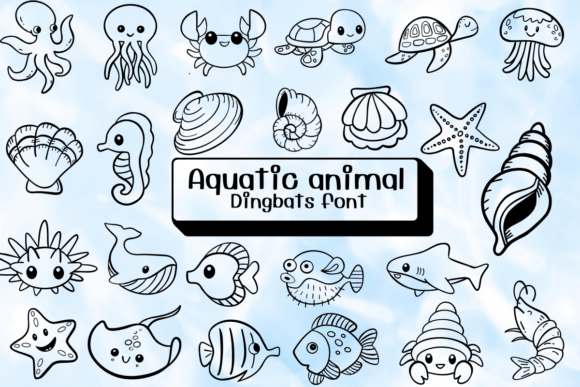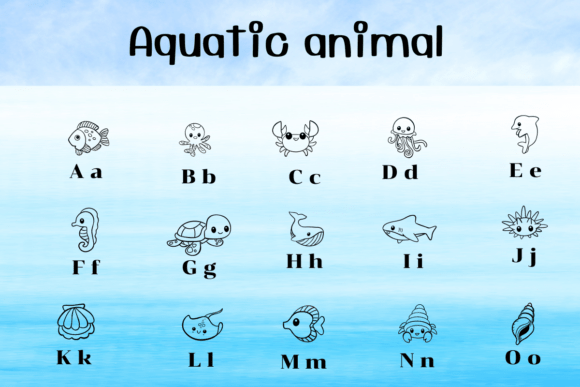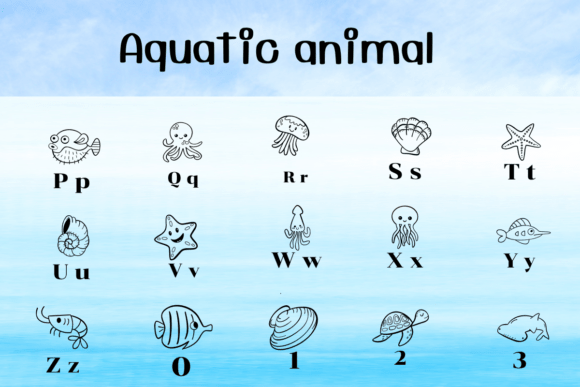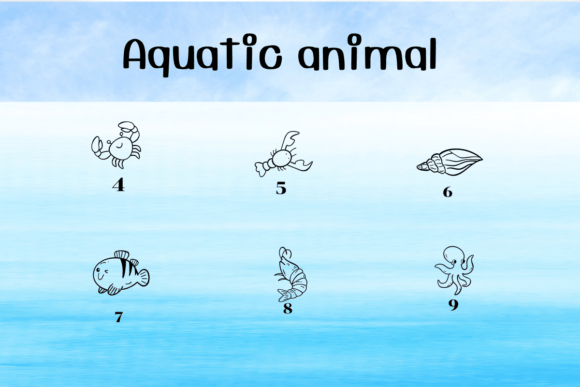
Aquatic Animal Font
About the Aquatic Animal Font
Crafted with precision, the Aquatic Animal Font is ready to bring your ideas to life. Aquatic Animal is a dingbats font with an aquatic theme. This font can enhance your creative projects such as wedding invitations, DIY, crafts, decorations, logos, and many other creative ideas.
Aquatic Animal excels in projects requiring playful, whimsical imagery. It’s ideal for short headlines, logos, and decorative elements on packaging or invitations. The font’s charm works best in contexts that evoke a sense of fun and lightheartedness. Avoid using it for body text or lengthy passages; its unique character is better suited to concise applications.
Pairing Aquatic Animal with a clean sans-serif like Open Sans or Lato provides a strong contrast, allowing the dingbats to stand out. For a more sophisticated look, consider a classic serif such as Garamond or a slightly more playful script font, but maintain a balance to avoid visual clutter.
The font’s core personality is undeniably playful and friendly, making it a perfect choice for brands targeting a youthful or family-oriented audience. Its whimsical nature would also suit projects related to children’s products, marine conservation, or summer-themed events.
Aquatic Animal Font Usage Examples
Aquatic Animal Font Example